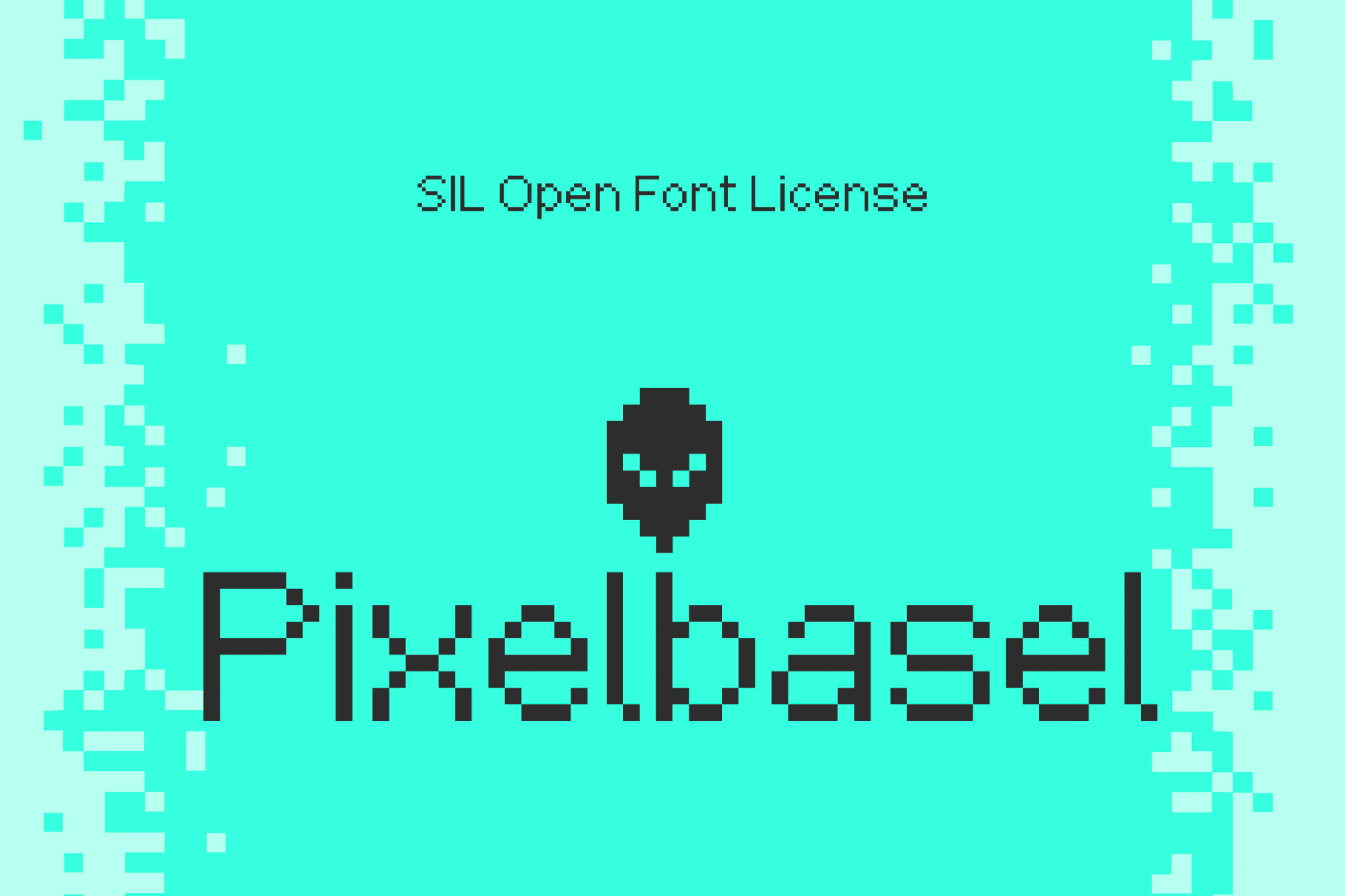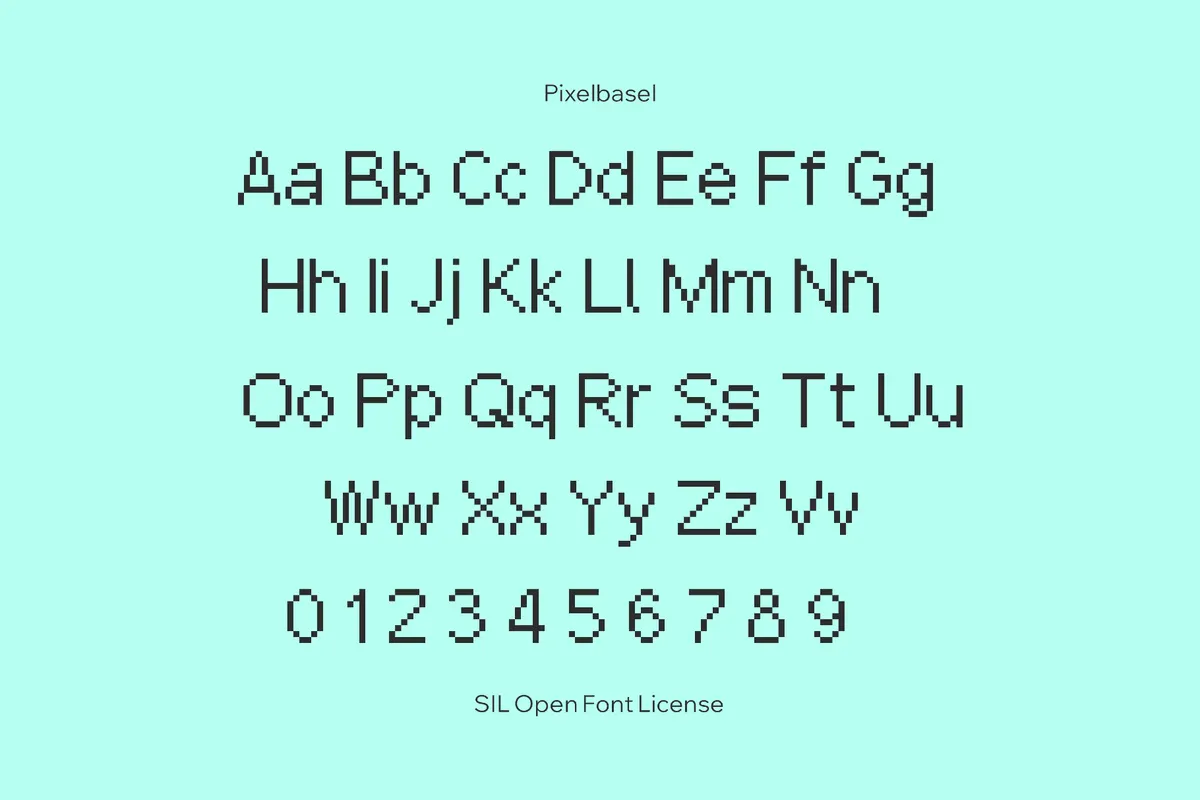
Pixelbasel
Pixelbasel lines up clean, square modules, and tight joints. It holds up at small sizes for captions and UI labels, then scales into bold wordmarks — a middle ground between bitmap clarity and modern restraint.
It is ideal for game logos and title screens, in-game HUD labels and dialogue, retro operating system or app mockups, dashboards and data visuals, tech or coding event posters, interface wireframes, social graphics about updates or releases, and branding for indie studios or digital products.